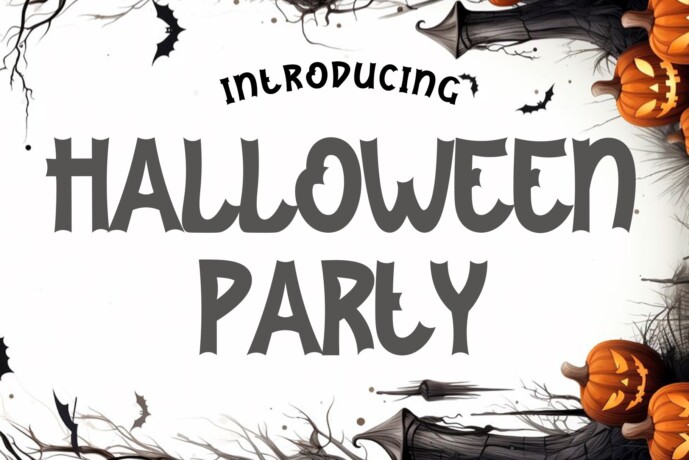
Halloween Party Font
Designer: Creatype Designer
Halloween Party is a delicate handwritten font carefully crafted for a cool and unique design. This font can be used to write letters, invitations, food products, titles, and more.